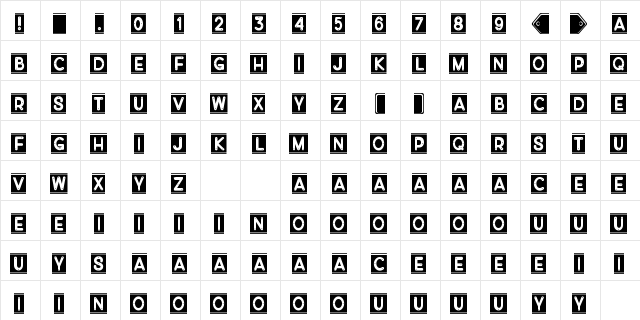
Diverplate Regular
| Foundry | Kotak Kuning Studio |
| Designer | Kotak Kuning Studio |
Design Context for Diverplate Typeface
Diverplate is a composed and adaptable typeface that performs quietly and consistently across a wide range of design contexts.